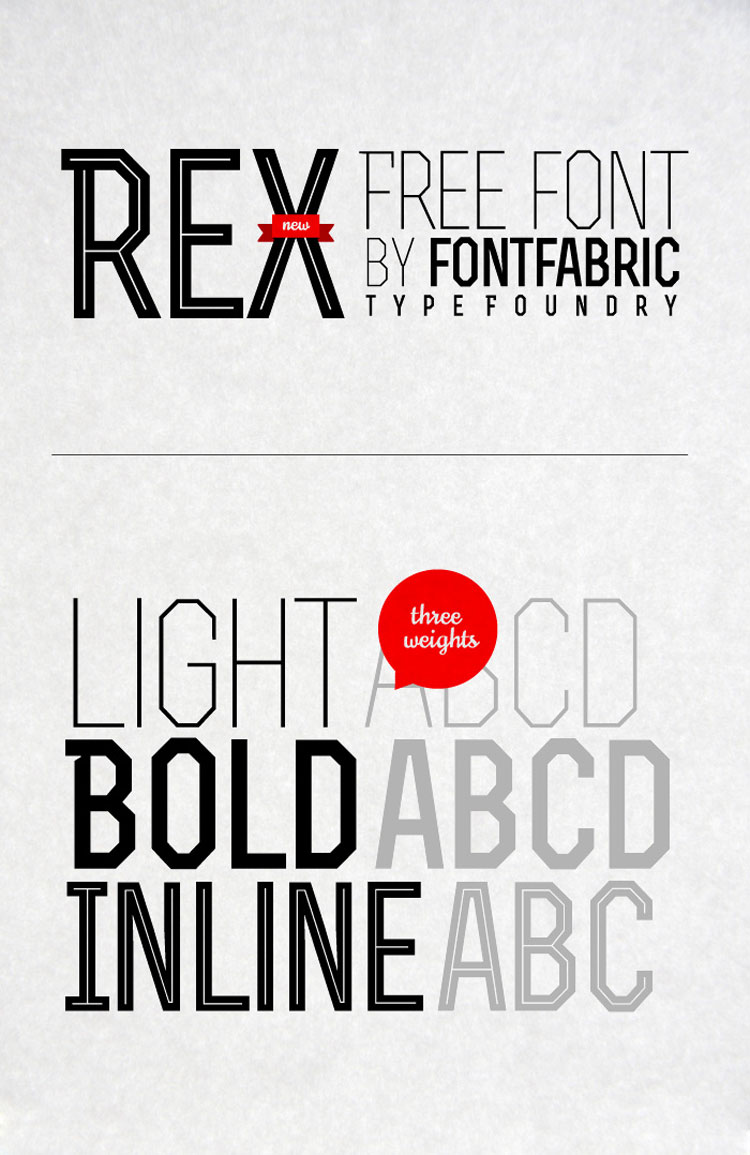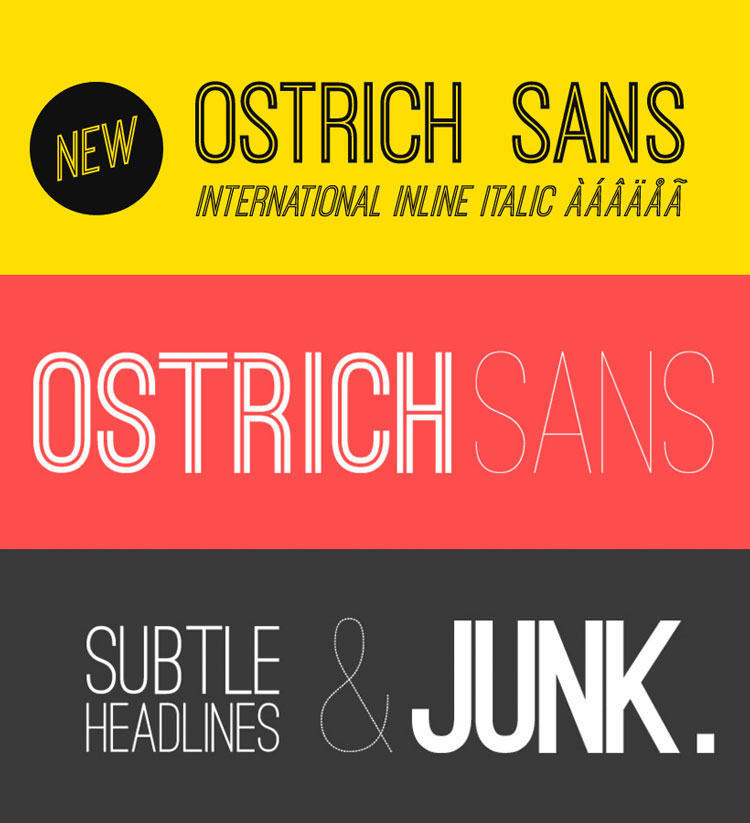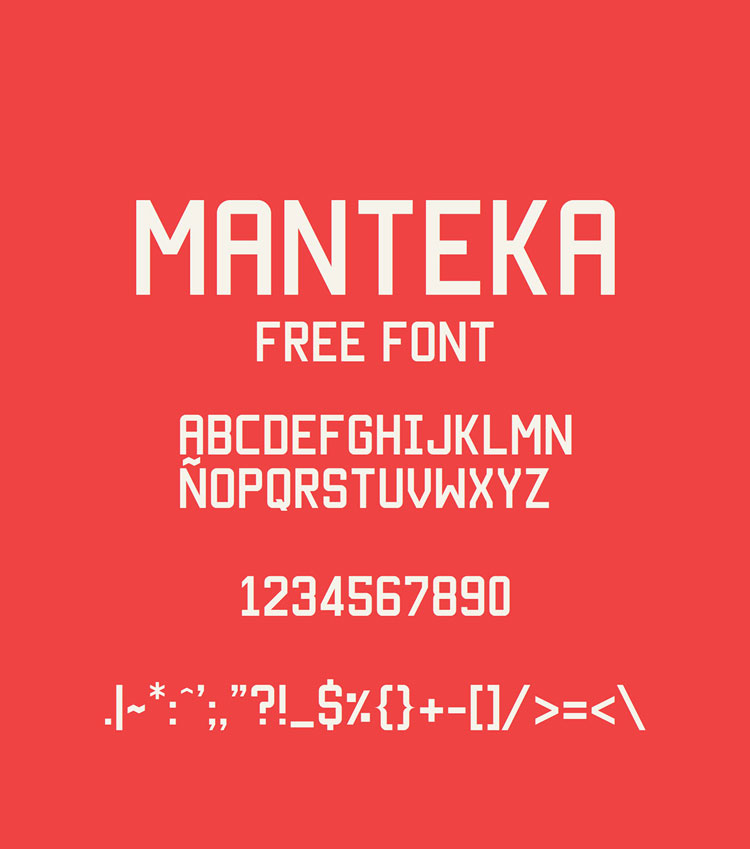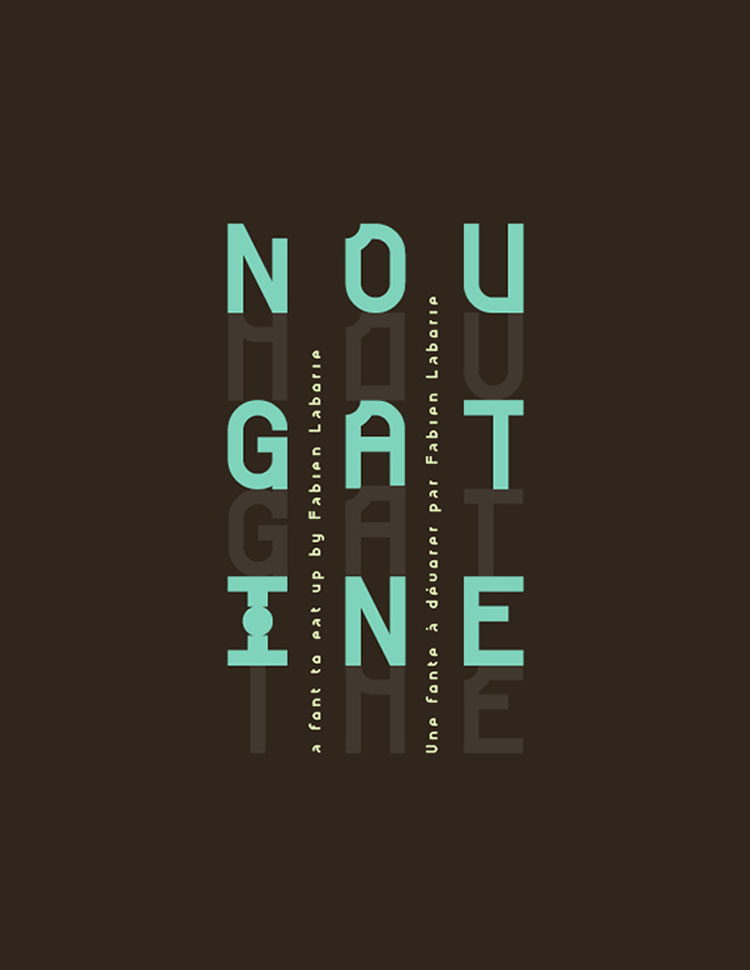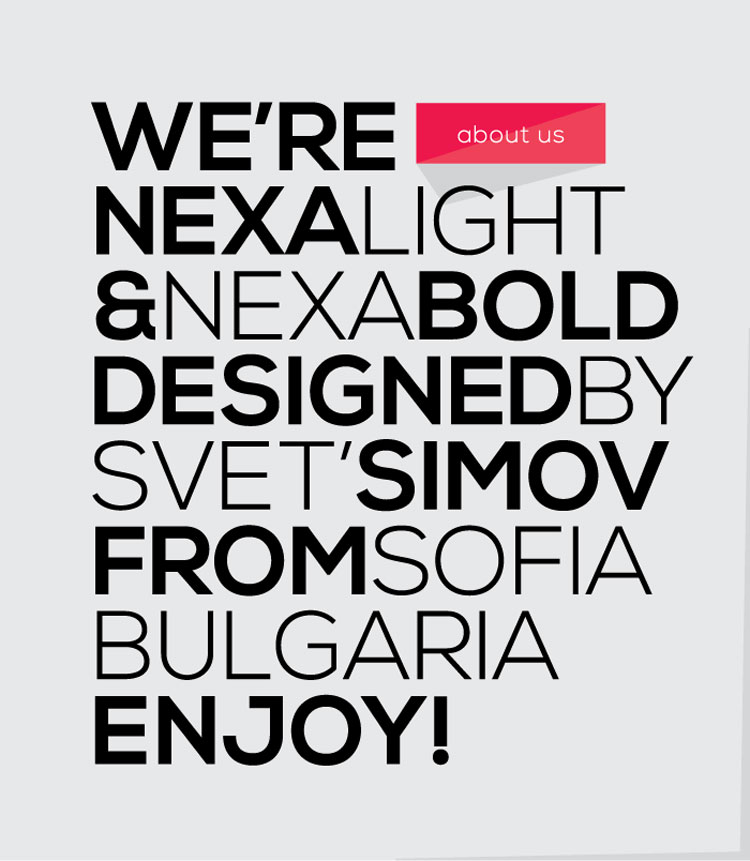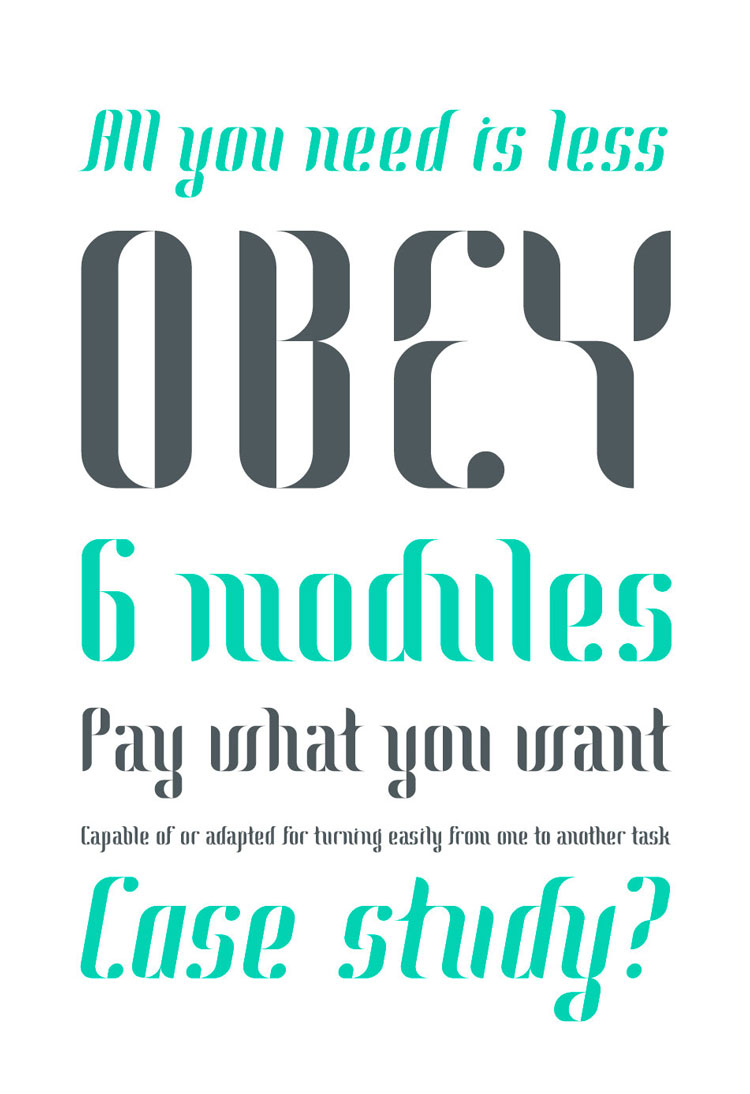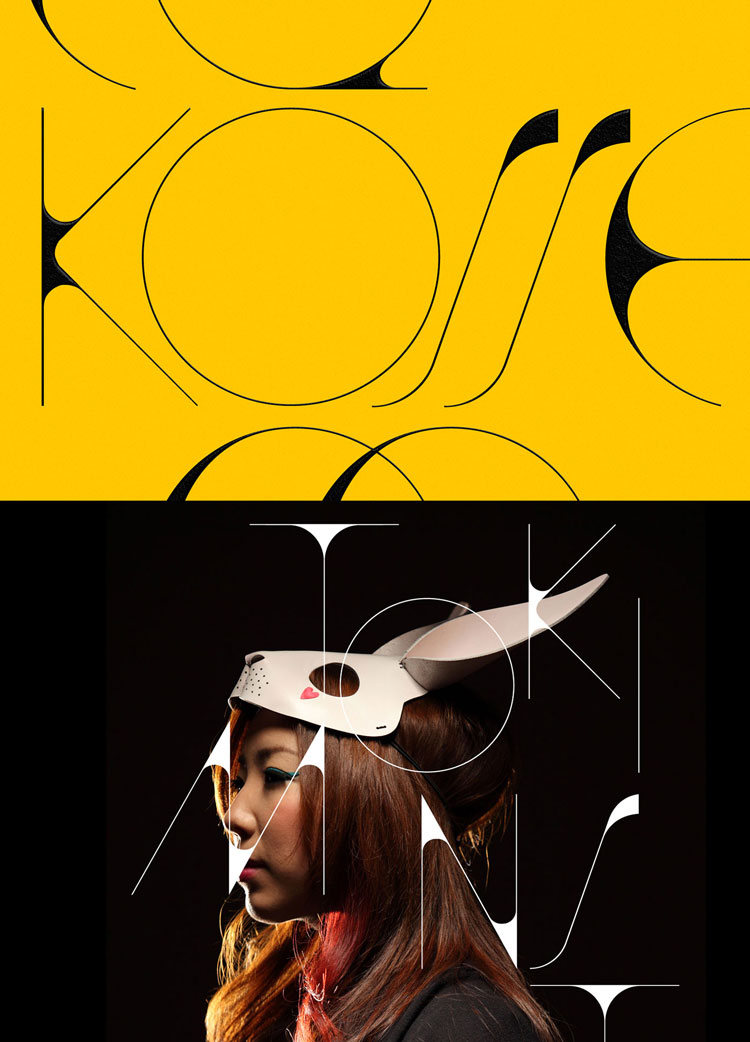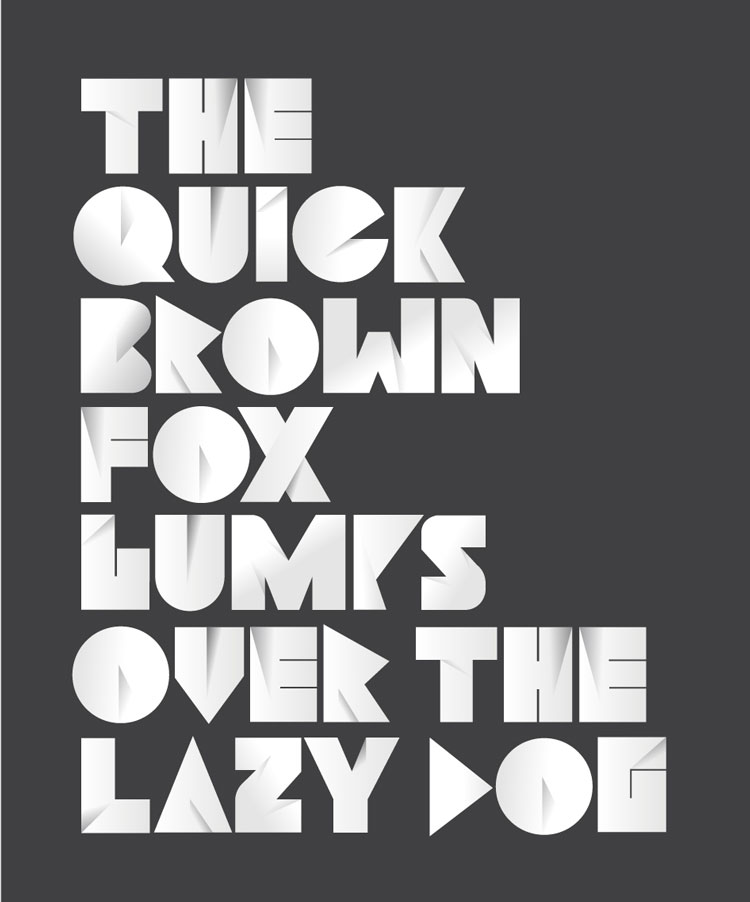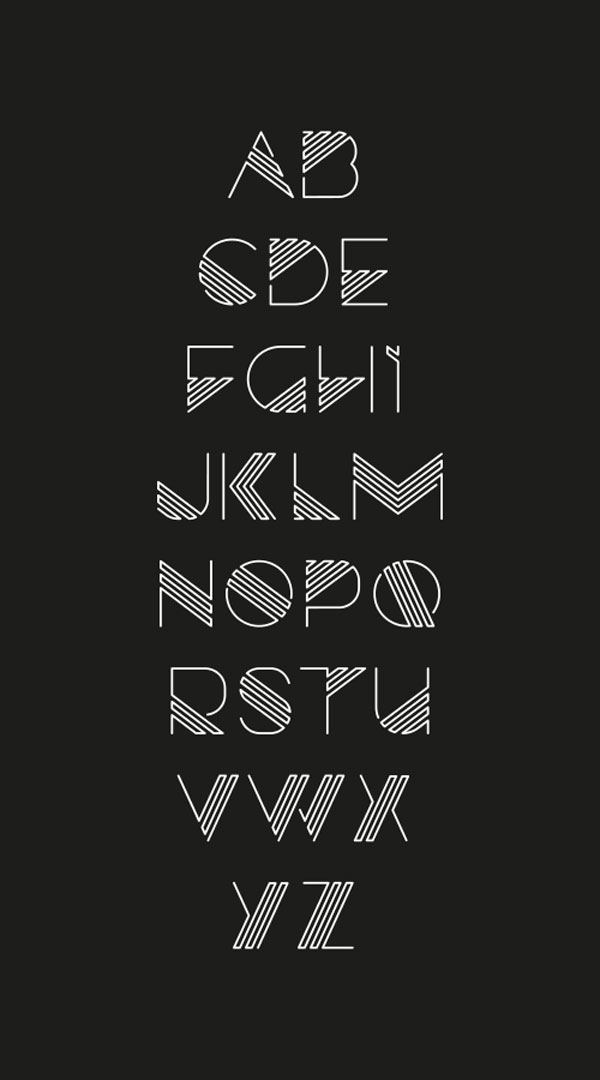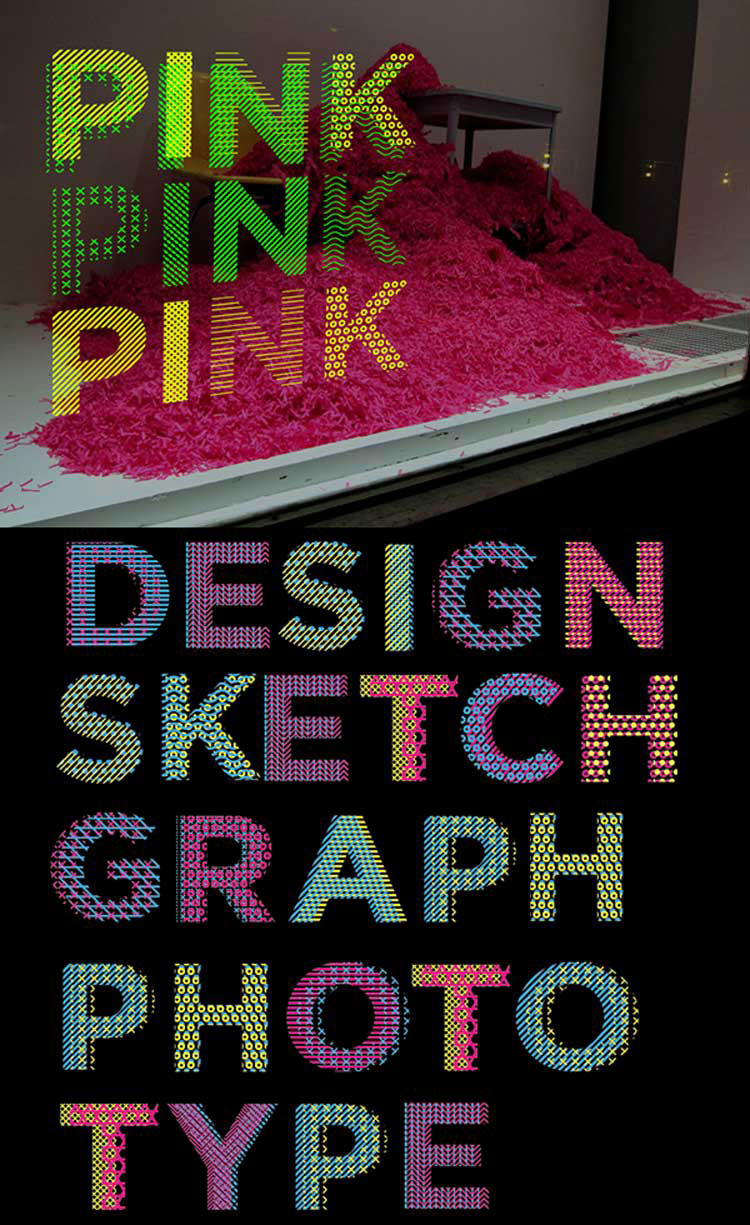
Bored using old typefaces and want to have some fresh royalty free fonts for your website and project? So, here are these 21 beautiful royalty free fonts for commercial use.
What’s matter a lot when going to make a new website or project for your client? Colors, textures, background color, font color and among all the most important thing is selection of fonts. Here are 20 royalty free fonts for commercial use.
Yes, fonts do matter a lot when designing a website or making any project. Because readers are supposed to read content and it must be readable. They shouldn’t have to face any difficulty of reading material. So, readable and awesome typeface must be your preference to facilitate the readers.
You’ll think of choosing so simple font may doesn’t look nice and cool. There’s no issue of this now as there are many beautiful free fonts are available that can be used for free.
In this post, 21 beautiful royalty free fonts will be shared that can be used for commercial use. These commercial use free fonts are not actually so minimal, rather they are fine-looking too.
Free commercial fonts will give new elegant touch to your project. They are commercial use fonts for your next project. Pick them up and give new fine-look to your website and project or assignment.
Rex Free Font
RBNo2 Free Font
Manteka Free Font
NOUGATINE free font
Capsuula
Nexa Free Font
Akrobat Free Font